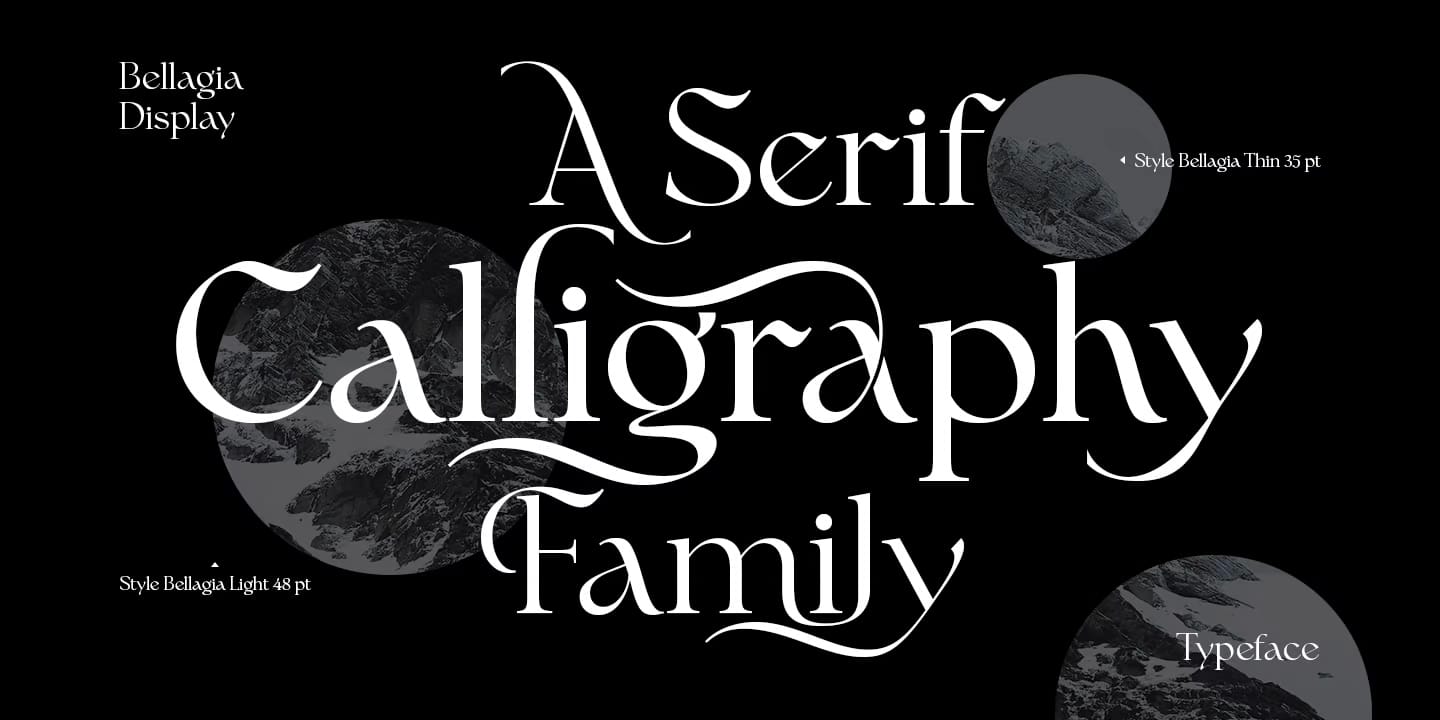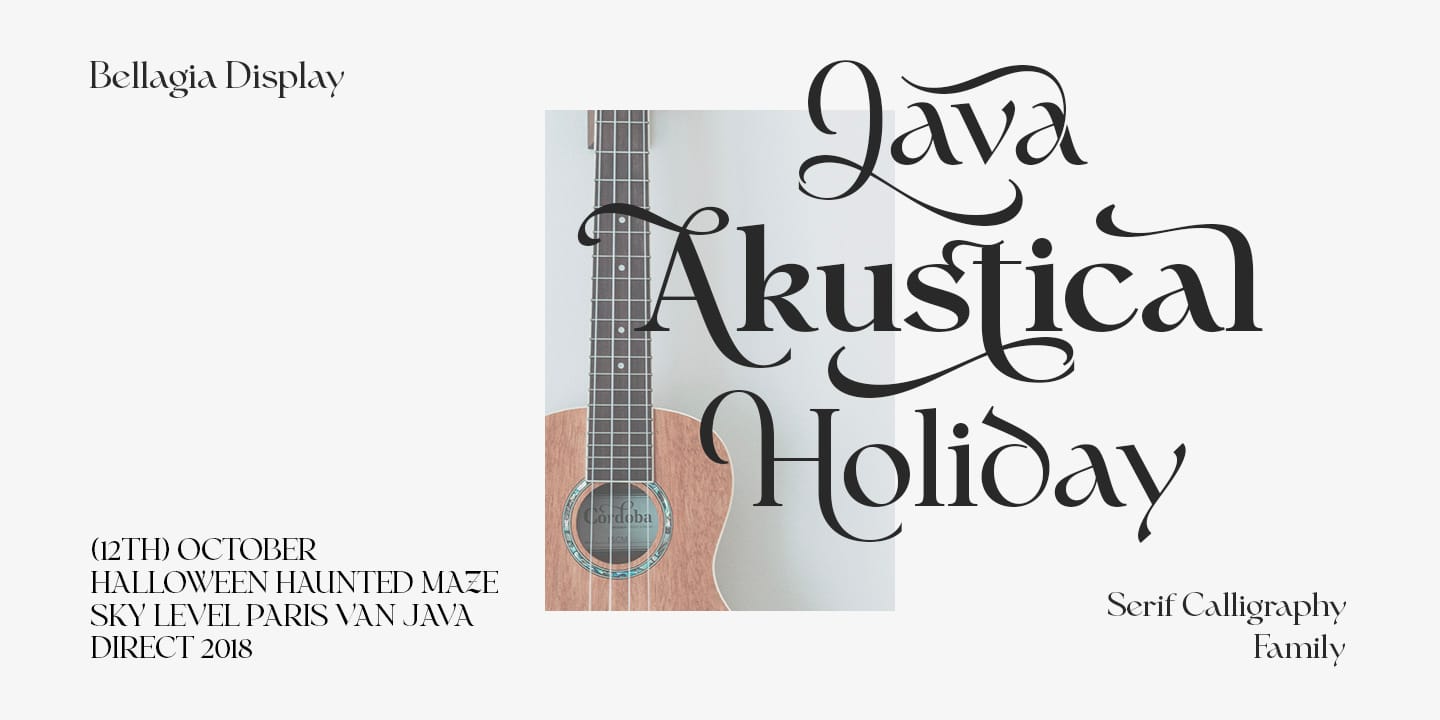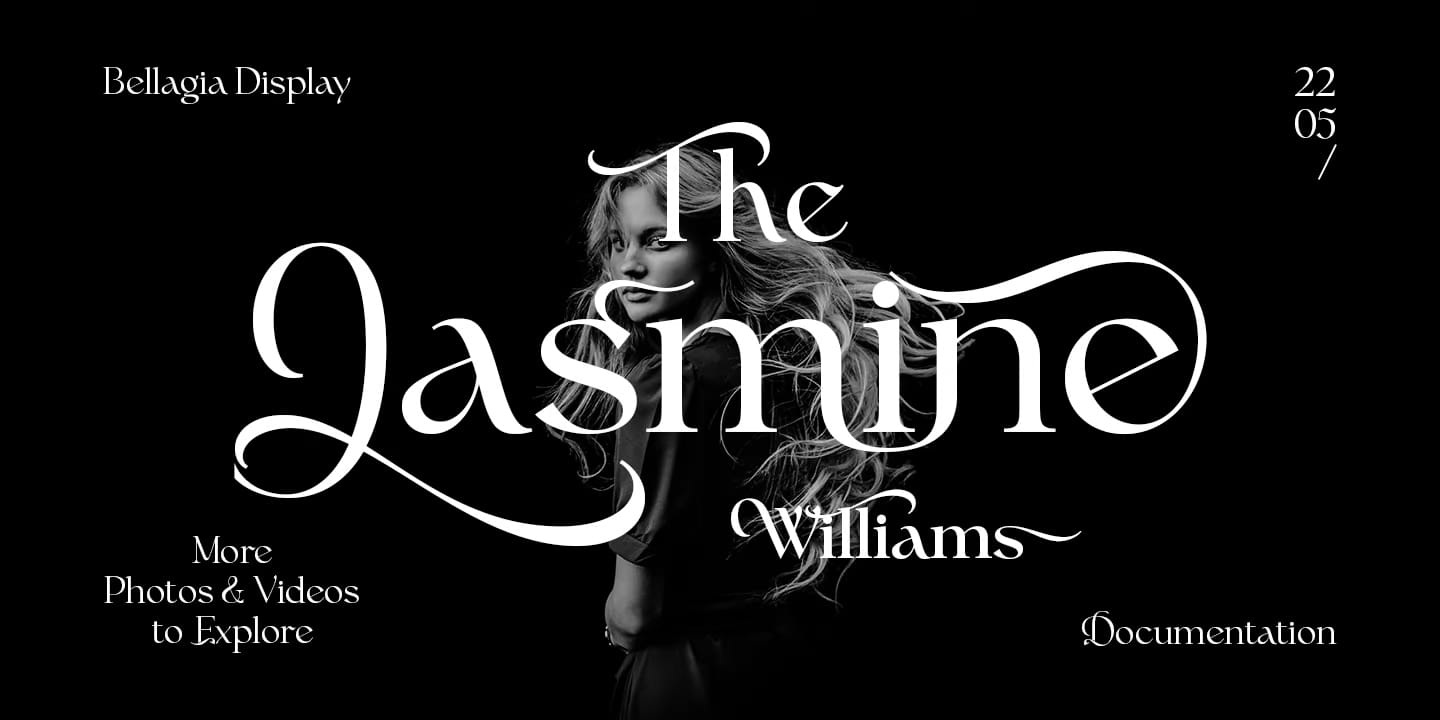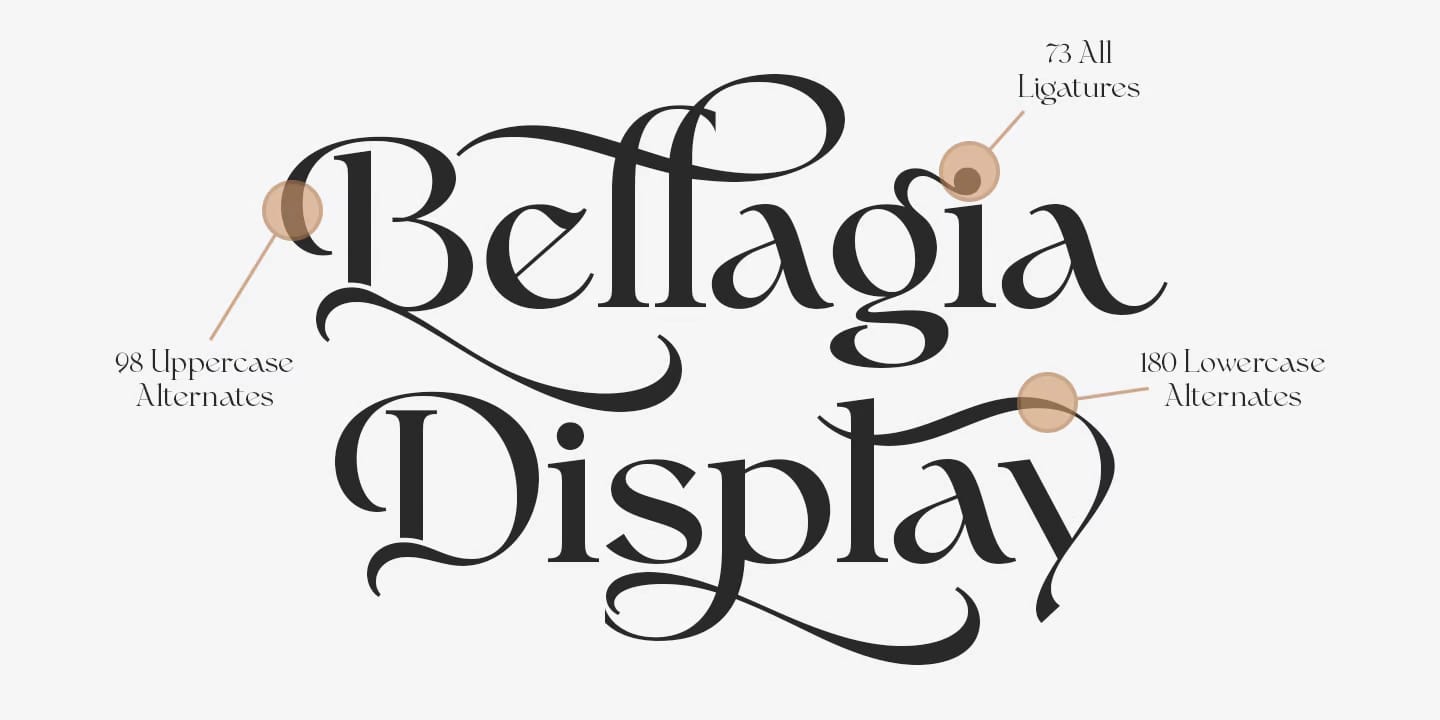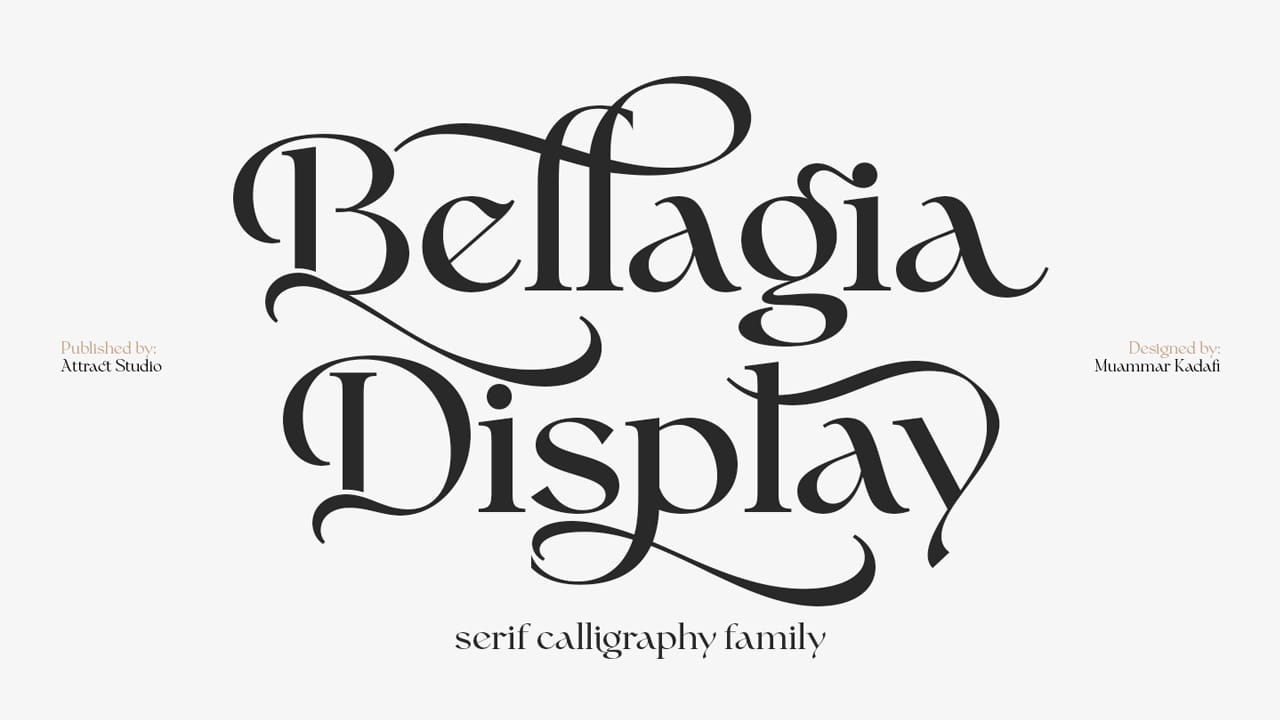
Bellagia Display is a new extremely impressive font set released in 2022 with a blend of two handwritten calligraphy fonts and classic serifs, Bellagia Display Font Family includes 8 styles from Thin to ExtraBold.
All wildcards and specially designed to create interesting and unique letters that give distinct impressions. Especially this font can be used well in both large and small sizes.
Bellagia Display perfectly supports your creativity in carrying out various design projects such as logo design, branding, magazine, label, invitation, long and short text.
Bellagia Display Features:
– 7 Weights (from Thin to Black)
– 1 Variable font
– Alternates & Ligatures
– OpenType support
– Multilingual